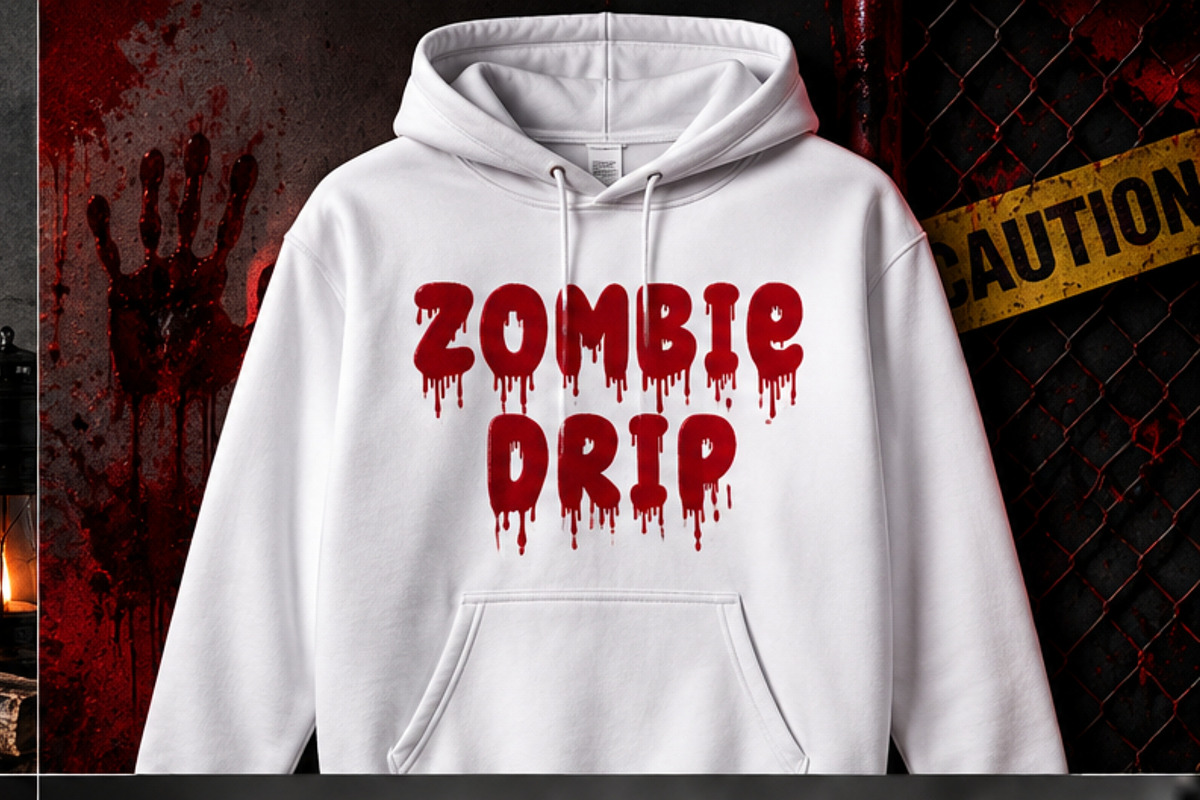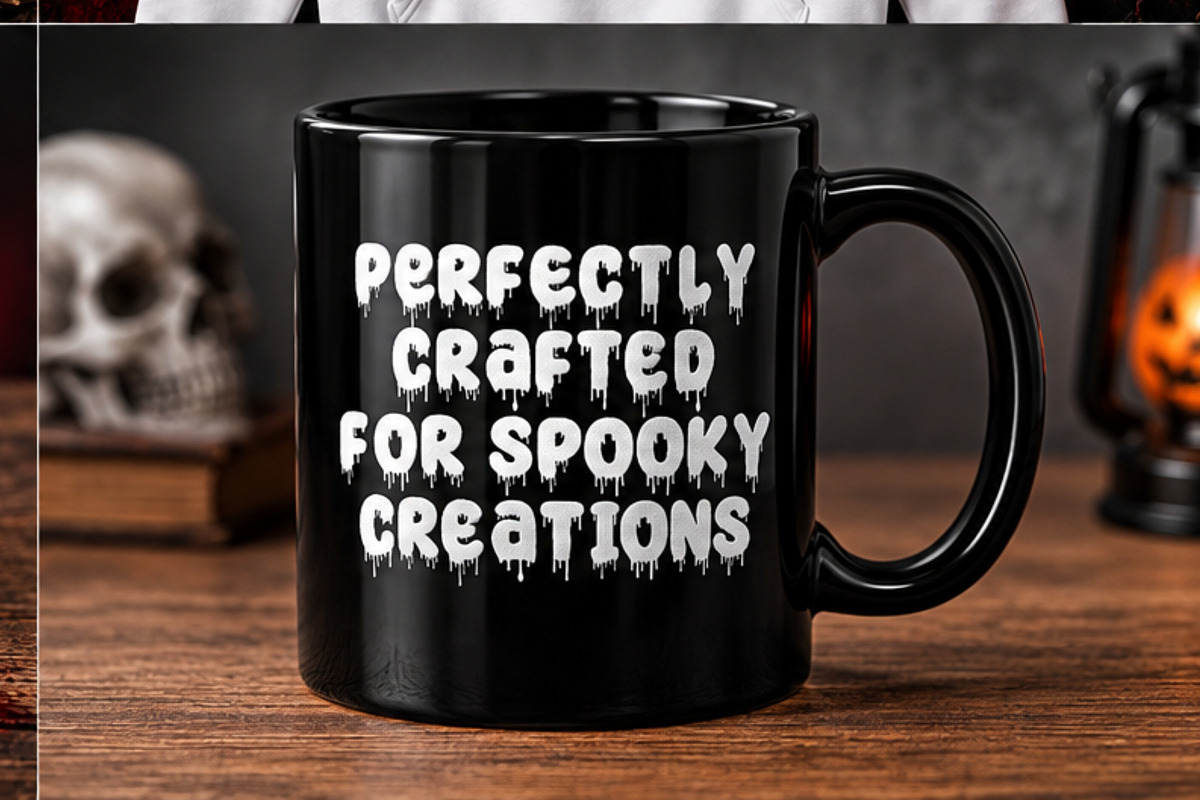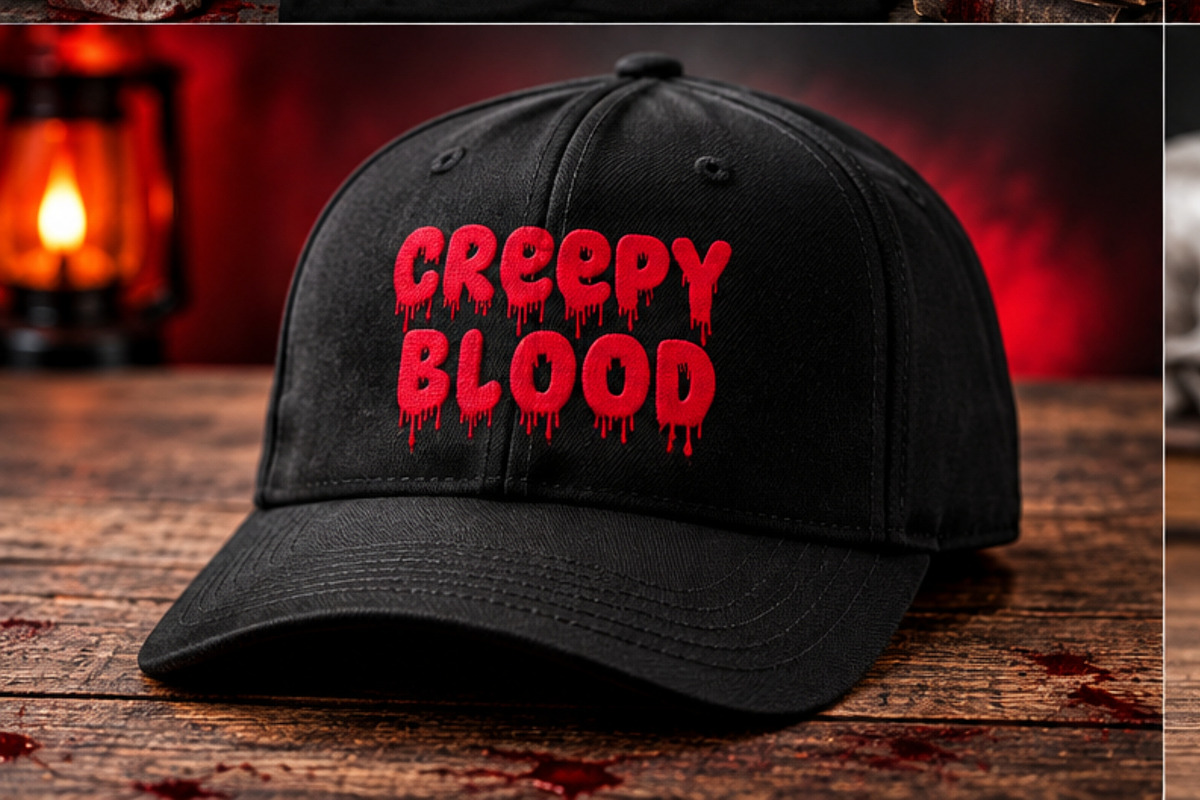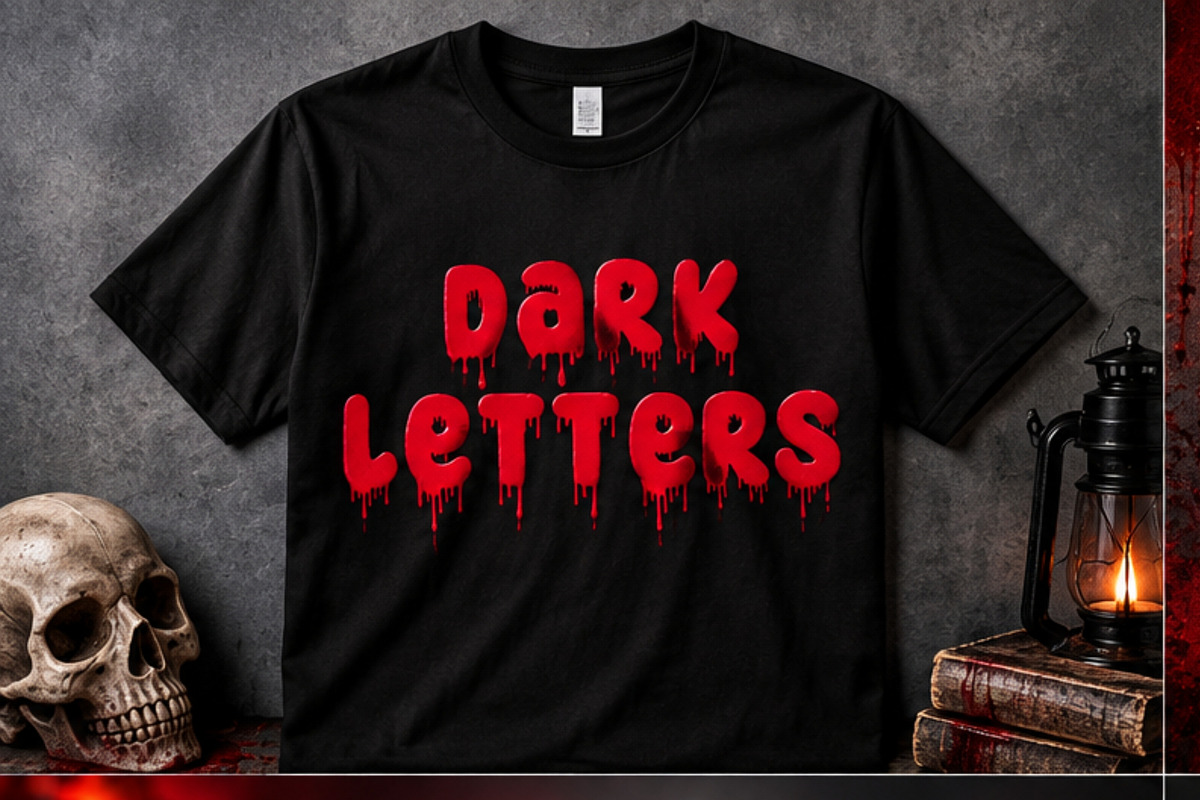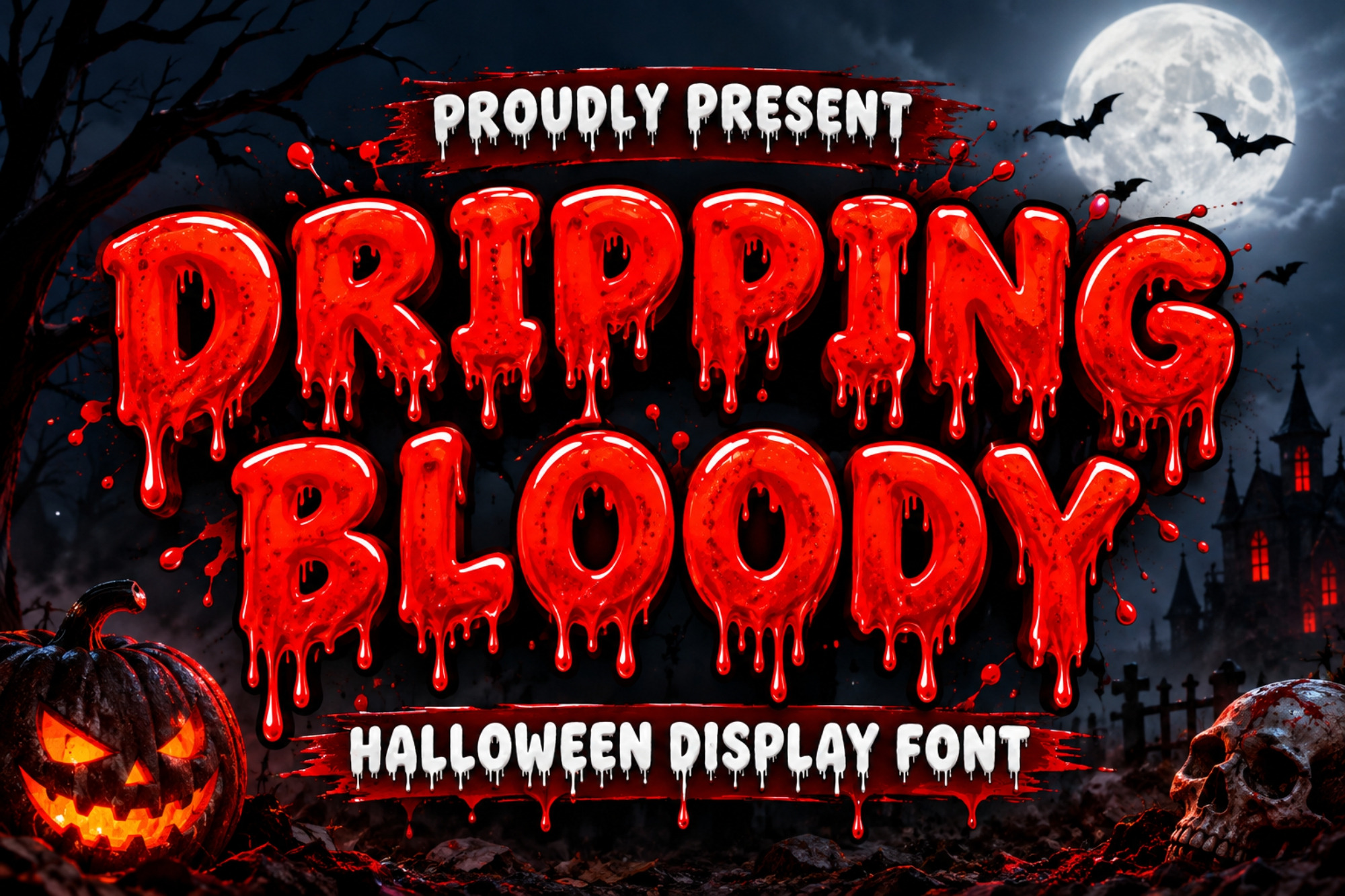
Dripping Bloody Font
Dripping Bloody Font is a terrifying display typeface inspired by dripping blood, horror movies, Halloween nights, and dark gothic aesthetics. Its irregular shapes and dramatic blood-drip details create an instantly creepy and sinister look.